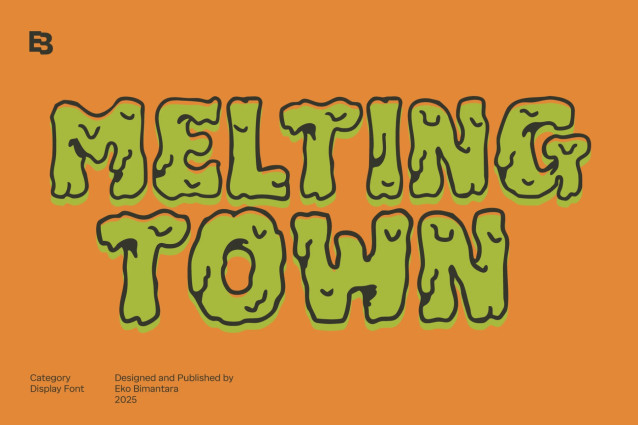
Melting Town Font by Eko Bimantara, suitable for any design needs : logo, branding, modern advertising design, logos, poster quote, book / cover Title, editorial design, website / blog, card, t-shirts, and any hand-lettered needs.
Melting Town Font
| Designer Name: | eko bimantara |
| Classification: | Display Fonts, Playful / Fun Fonts |